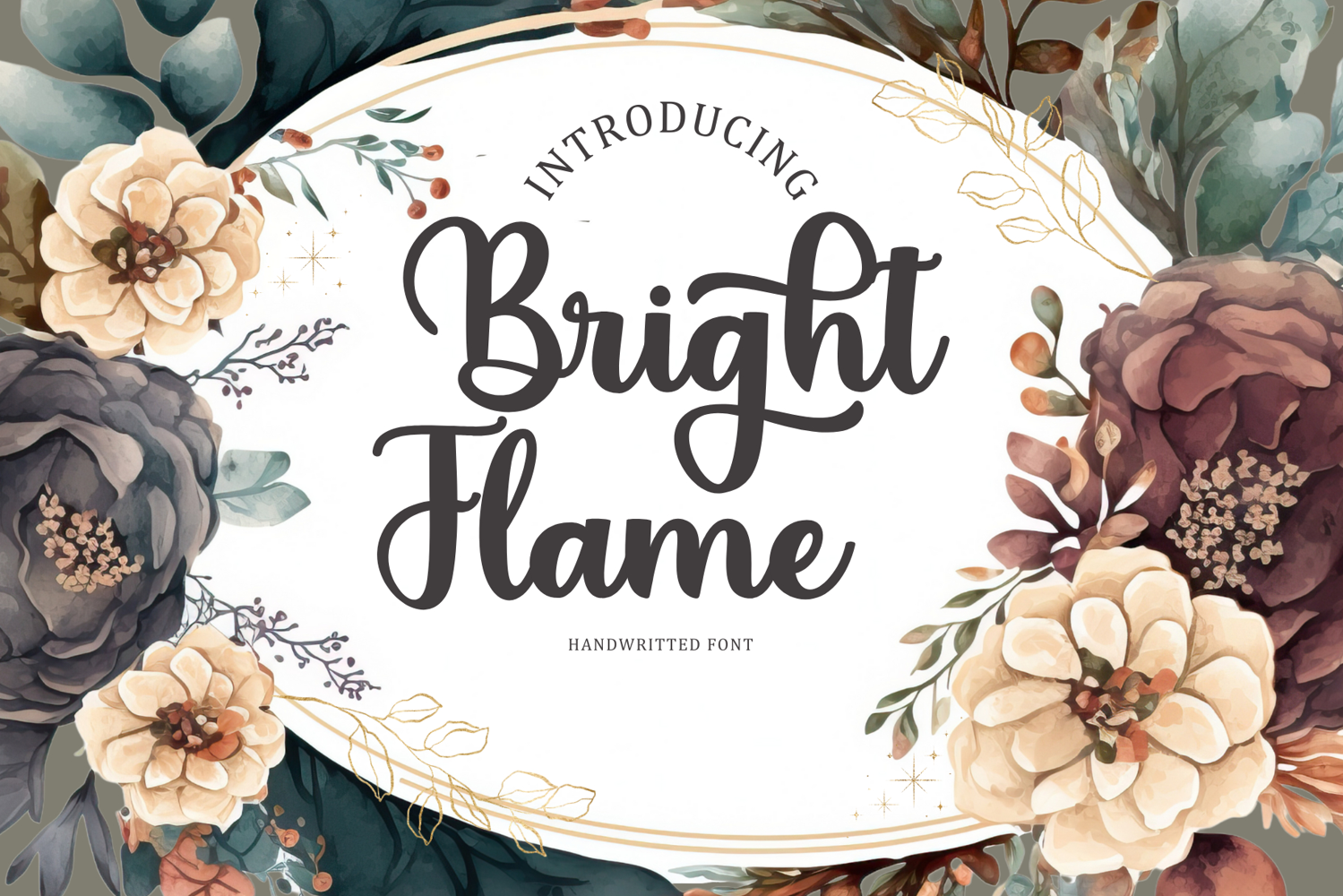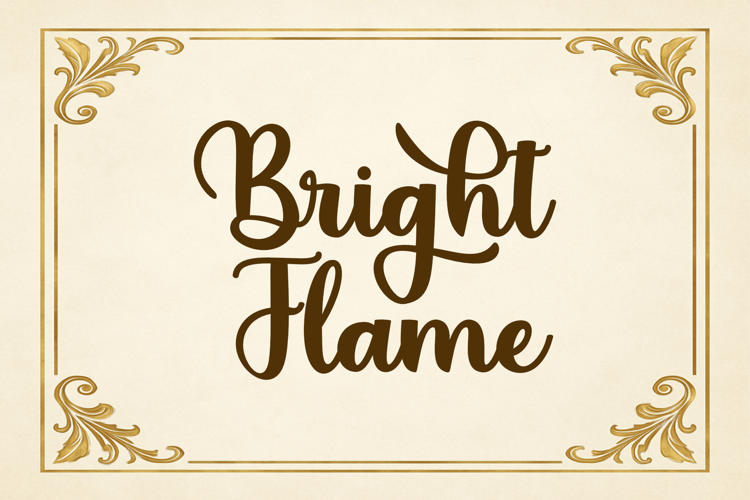
Bright Flame
BrightFlame
Bright Flame is a vibrant and elegant handwritten script font that captures the warmth and energy of a glowing flame. With its fluid strokes and natural flow, this font radiates charm—perfect for branding, wedding invitations, logos, greeting cards, and inspirational quotes. Whether you're crafting something heartfelt or bold, Bright Flame adds a spark of sophistication and creative flair to any project.